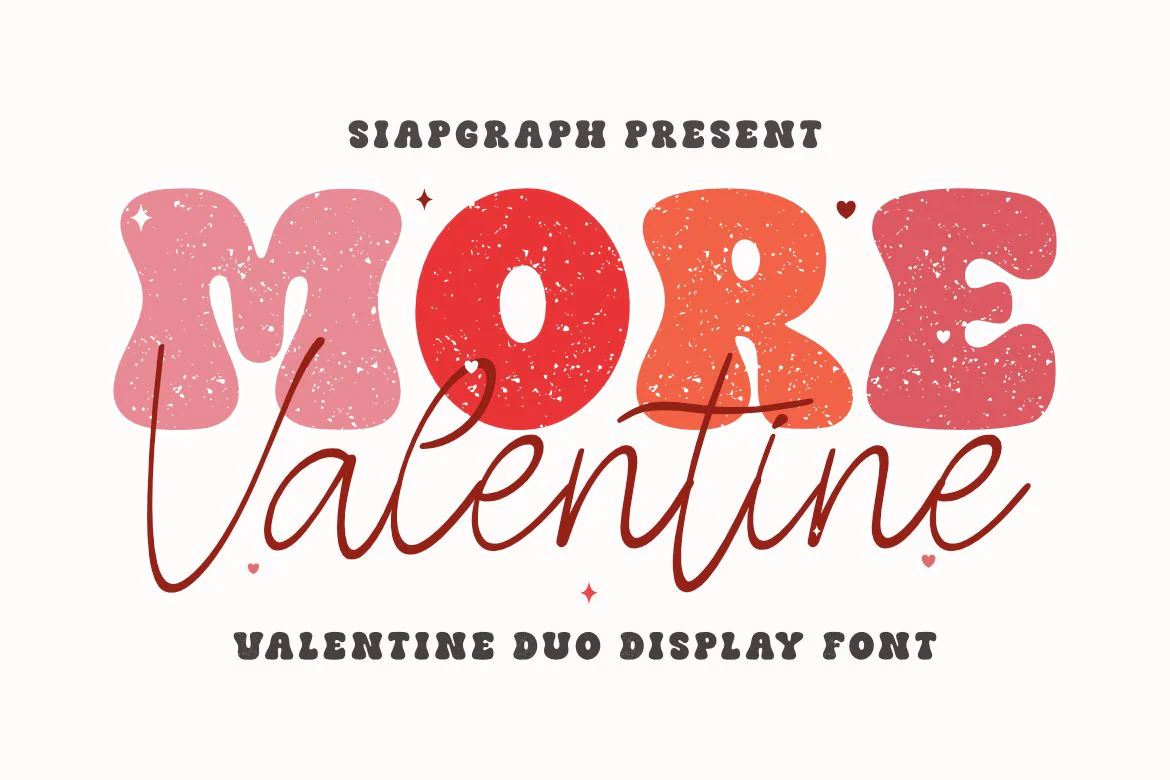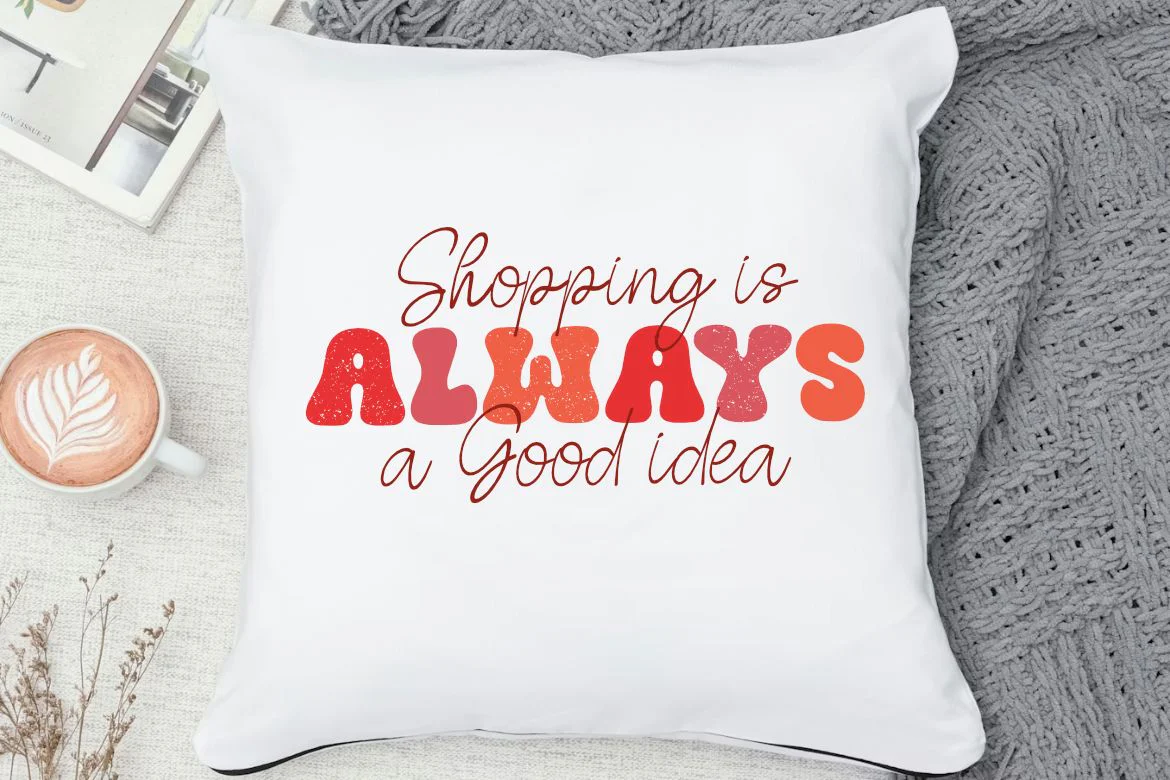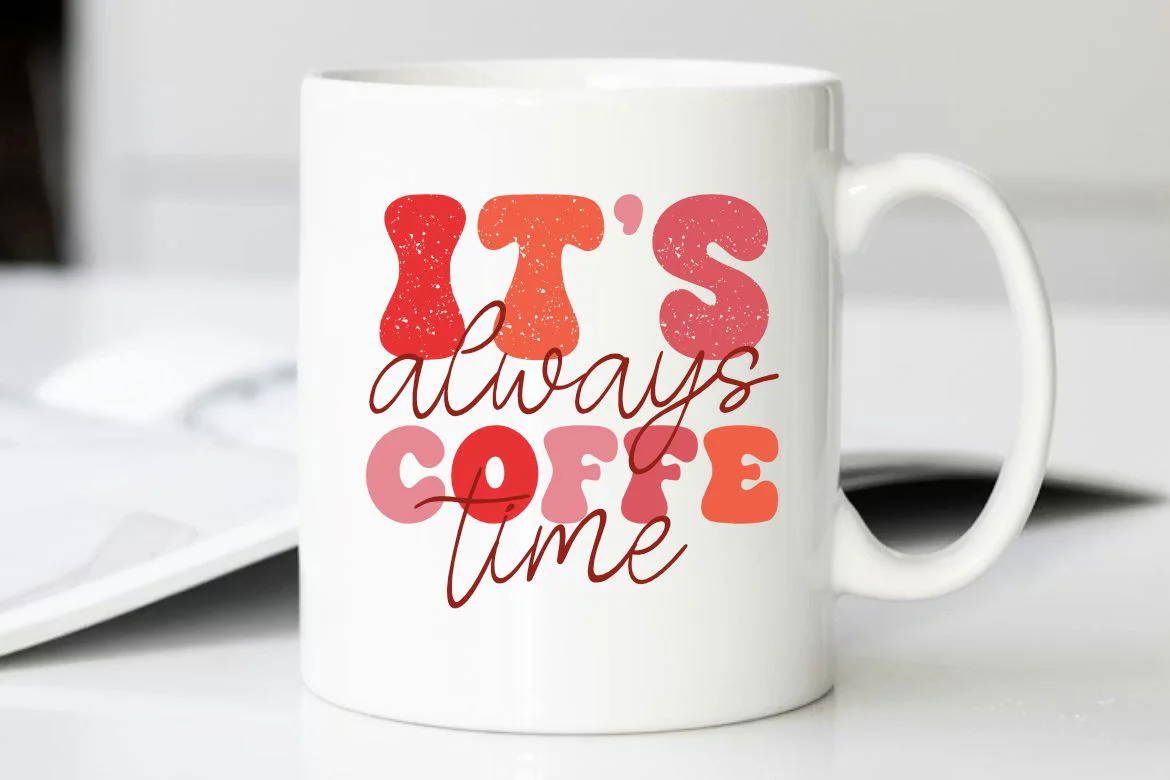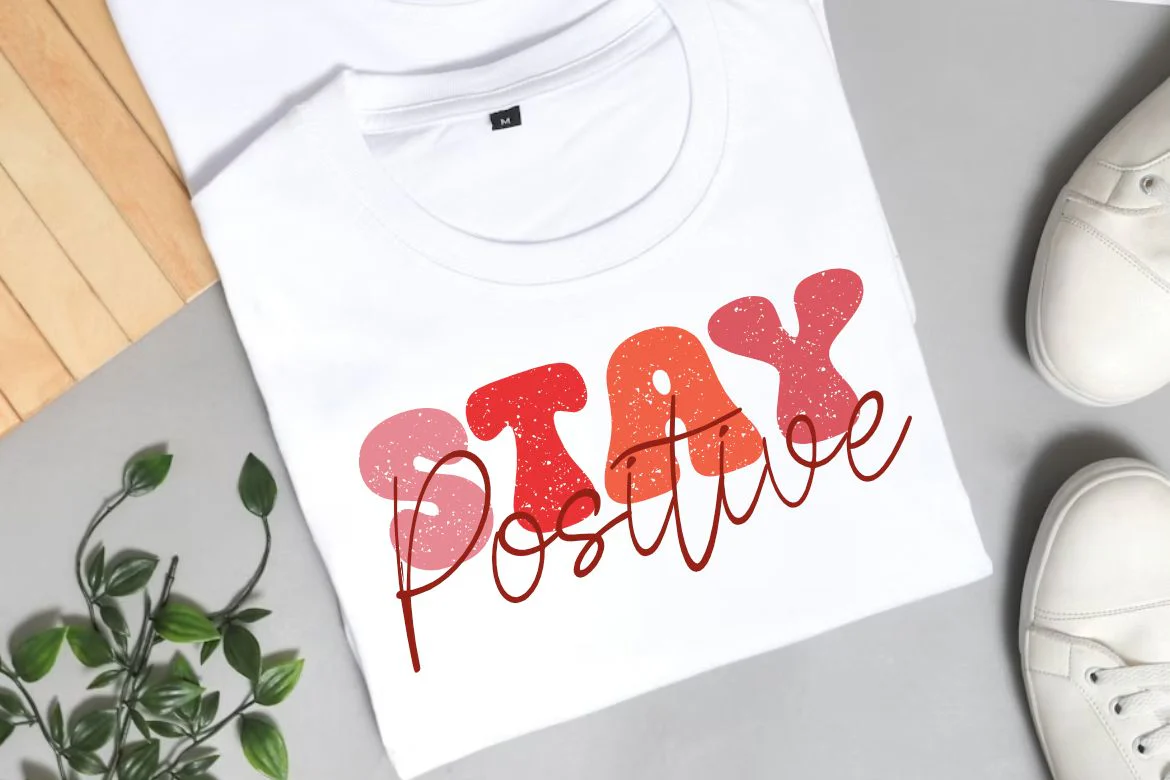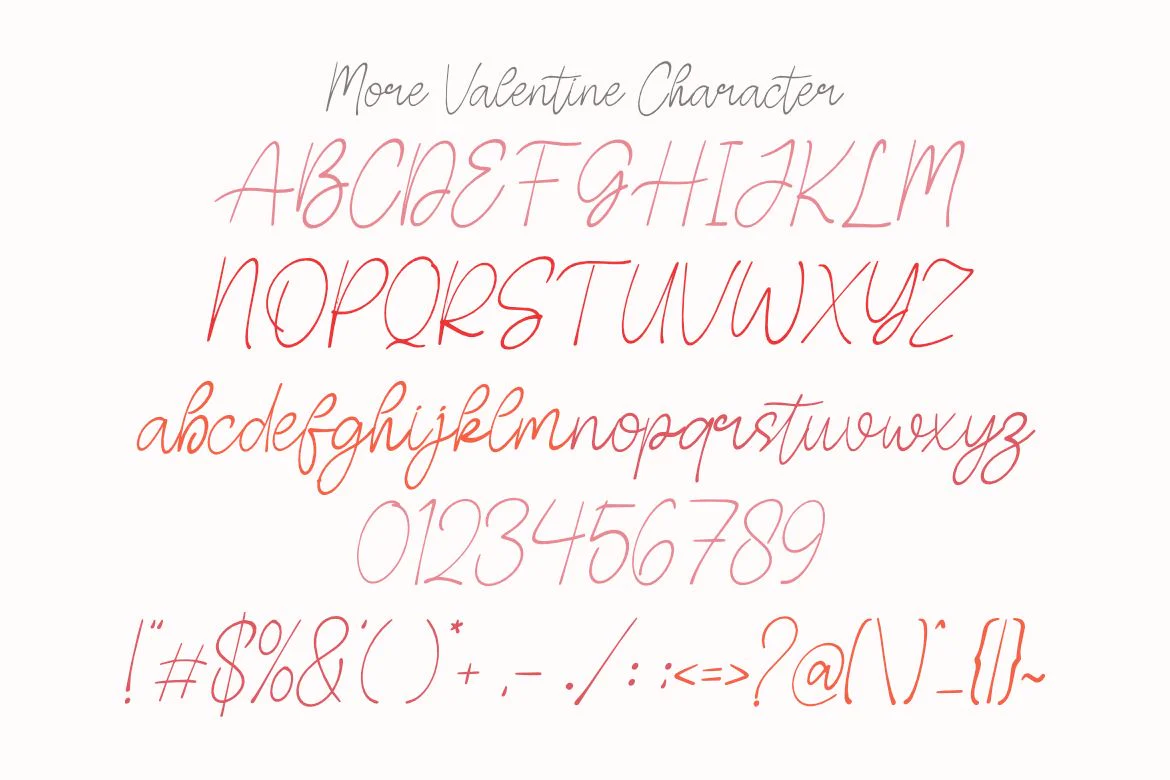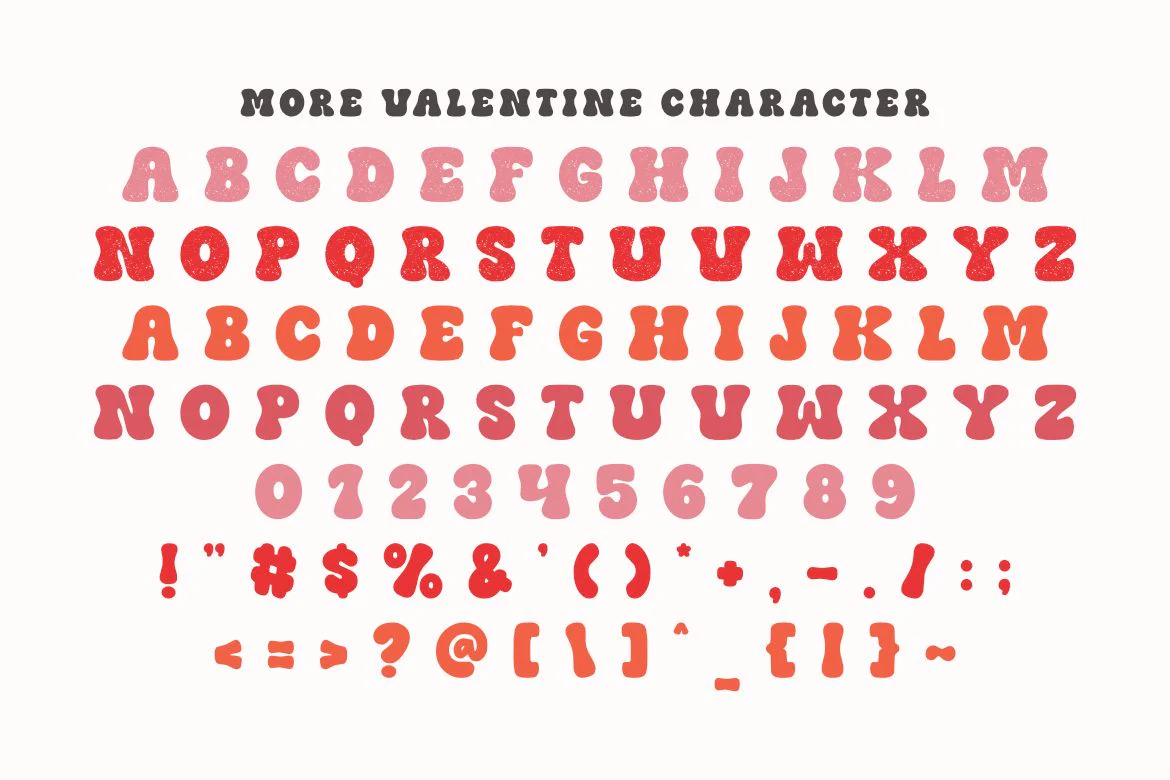
More Valentine - Groovy Handwriting Duo Font
Bring your ideas to life with More Valentine is a valentine font duo, a charming and cute bubble font that exudes playfulness! Its soft curves and bold appearance are perfect for creating eye-catching headlines, posters, social media graphics, and branding. Add a dreamy touch to your designs with this delightful font that’s both fun and versatile.